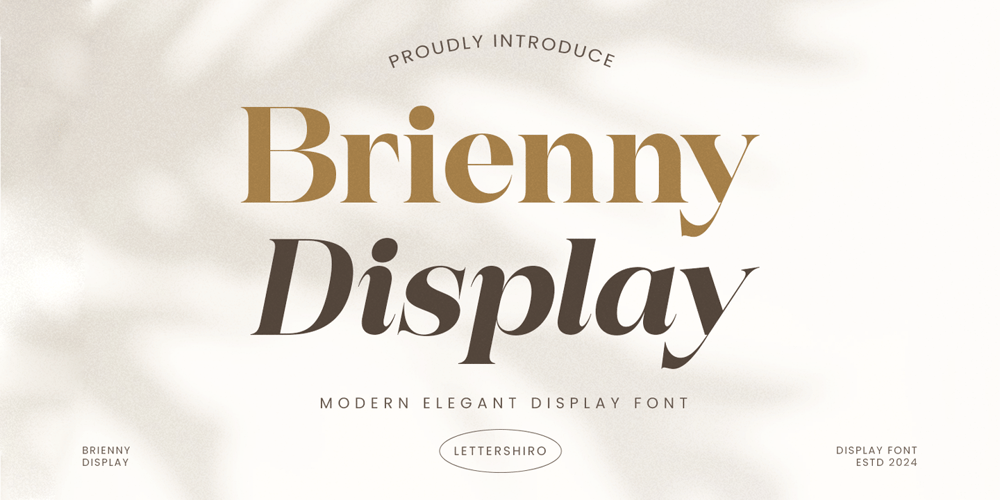
Brienni Display Branding Font Family was designed by Muhammad Sirojuddin and published by Lettersiro. Brienni Display Branding contains 2 styles and family package options. Introducing Brienny Display FontWe are thrilled to introduce Brienny, a modern and elegant serif font crafted to elevate your design projects. Brienny comes in two versatile styles: regular and italic, each meticulously designed to bring a touch of sophistication and contemporary flair to your work.Features: Modern Look: Brienny boasts a sleek and stylish design, making it ideal for a wide range of modern applications. Versatile Styles: With both regular and italic styles, Brienny offers flexibility and adaptability, ensuring it fits seamlessly into various design contexts. Perfect for Text: The clear and legible characters make Brienny an excellent choice for body text, ensuring readability and aesthetic appeal. Ideal for Posters and Ads: Whether you’re designing eye-catching posters or compelling advertisements, Brienny’s bold and refined appearance will make your content stand out. Suitable for Modern Logos: Create striking and memorable logos with Brienny, adding a touch of elegance and professionalism to your brand identity. All About Modern Design: Brienny is crafted with contemporary design principles in mind, making it perfect for all aspects of modern design, from web to print. Elevate your designs with the timeless beauty and versatility of Brienny. Whether you’re working on branding, editorial design, or promotional materials, Brienny is the perfect choice to add a sophisticated and modern touch to your projects.